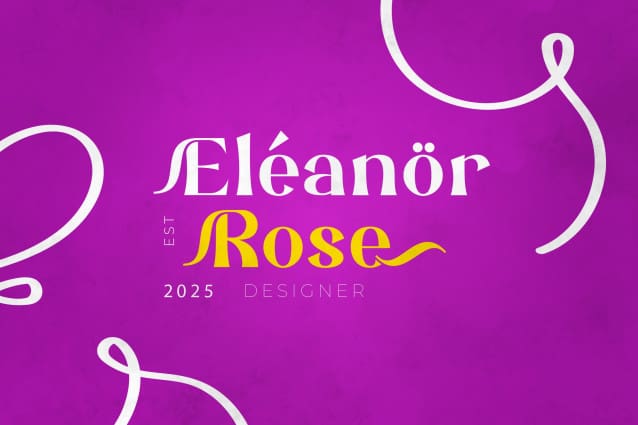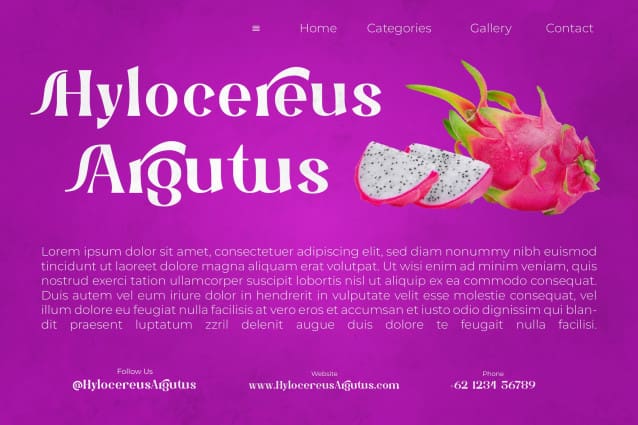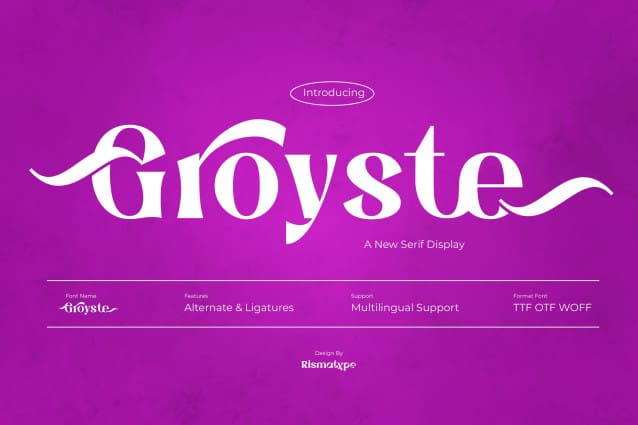
Groyste Font
Groyste Font, a fun mix of classic and modern typefaces. This bold serif display font is perfect for establishing a strong, confident brand identity. With its striking features, this font is attention-grabbing and designed to accentuate your logo or product packaging.
Groyste Font effortlessly exudes an aura of modern sophistication while nodding to classic typography traditions. Experience the bold versatility of the enchanting GroysteFont  and transform your branding like never before.